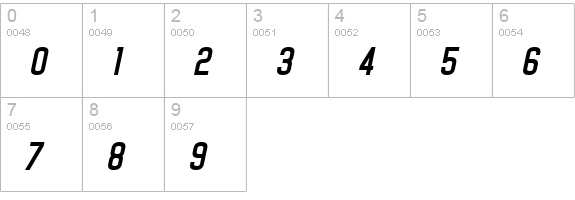
Noasarck Obliquo Italic Font Details
Noasarck Obliquo Italic is a distinctive, italic variant in the Noasarck typeface family \xE2\x80\x94 well suited to design and typography projects.
The Noasarck Obliquo Italic font exudes elegance and sophistication with its sleek, slanted design. Its graceful curves and stylish angles make it a perfect choice for adding a touch of modern flair to any project. The italicized style of the Noasarck Obliquo font adds a sense of movement and dynamism, making it ideal for conveying a sense of energy and creativity. What's even better is that the Noasarck Obliquo Italic font is available for free download at FontsMarket.com. This means that you can easily access this stunning font without any cost, allowing you to enhance your designs without breaking the bank. Whether you're working on a professional project or simply looking to add a touch of sophistication to your personal creations, the Noasarck Obliquo Italic font is sure to impress with its sleek and stylish appearance. Download it today and elevate your designs with this exquisite typeface.